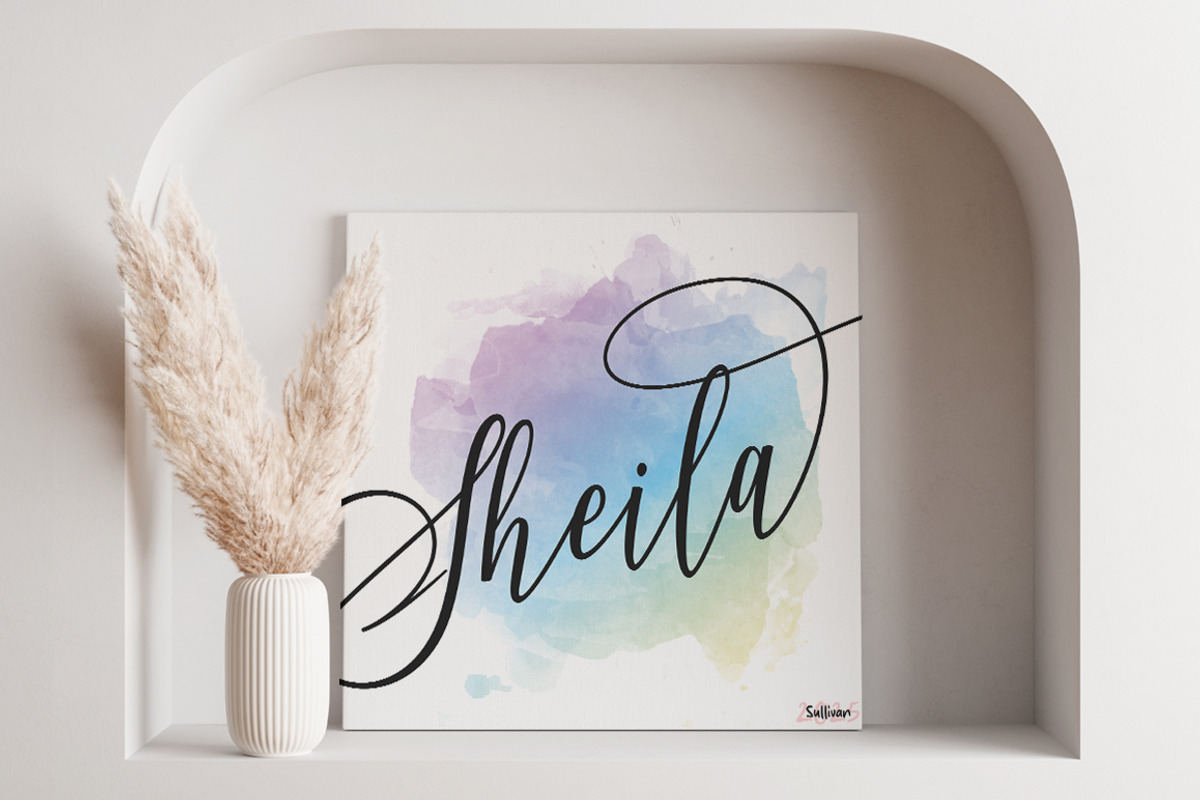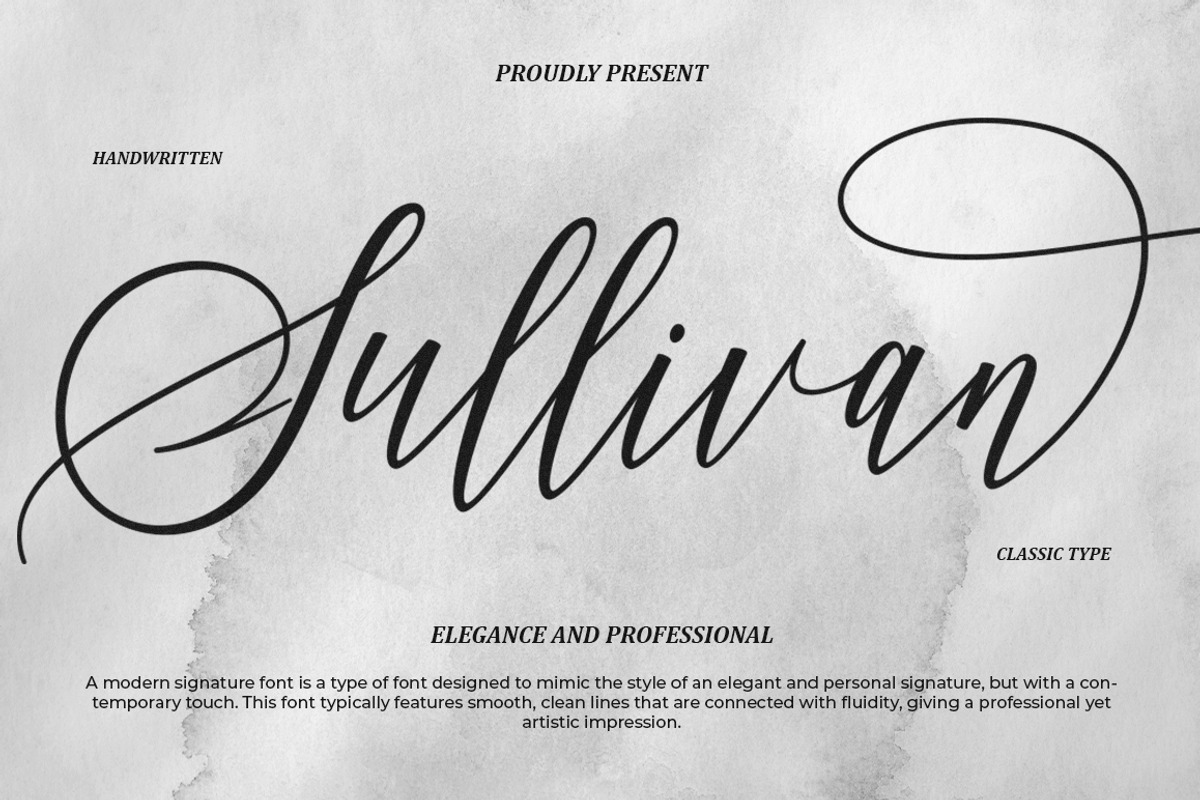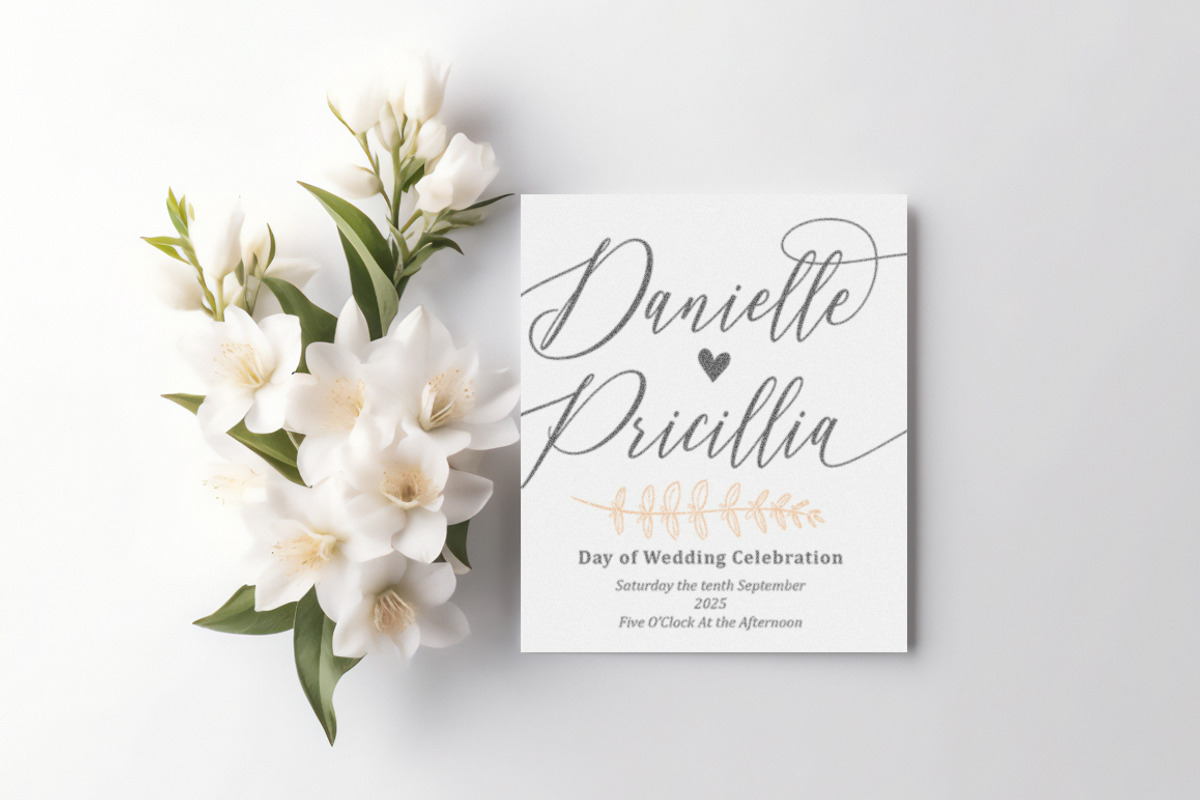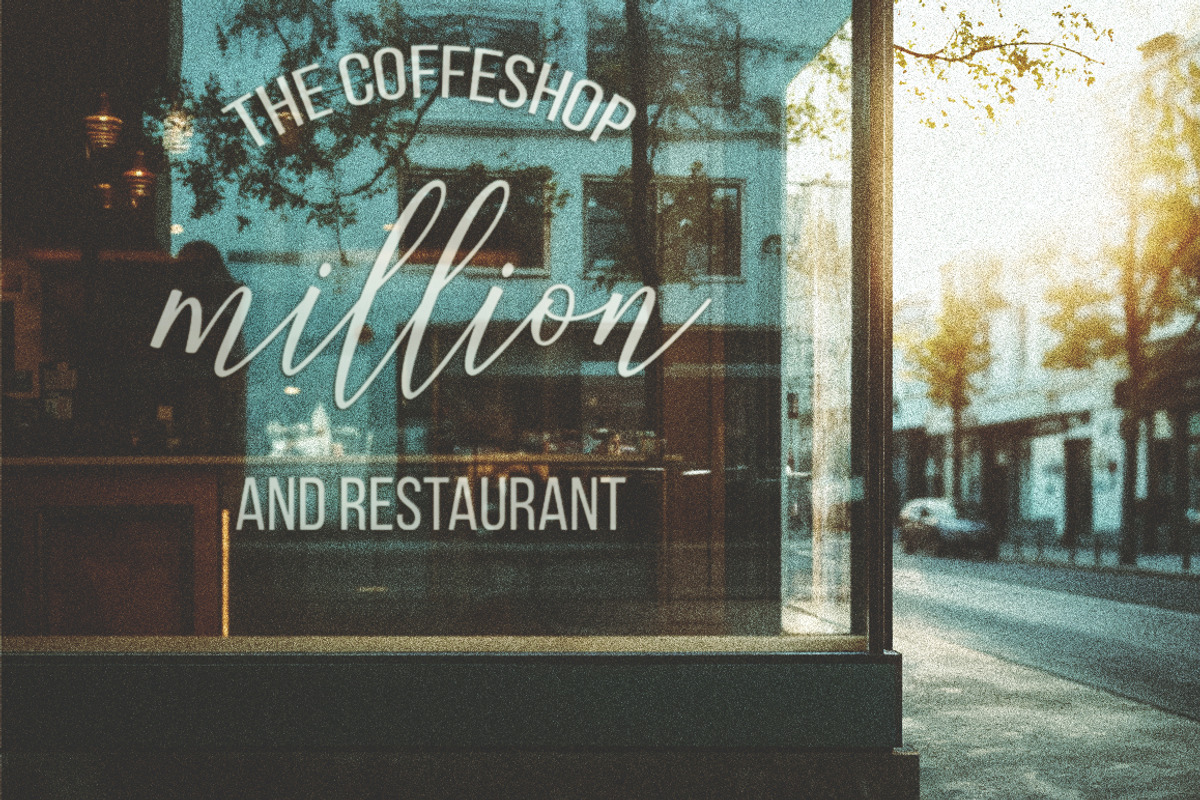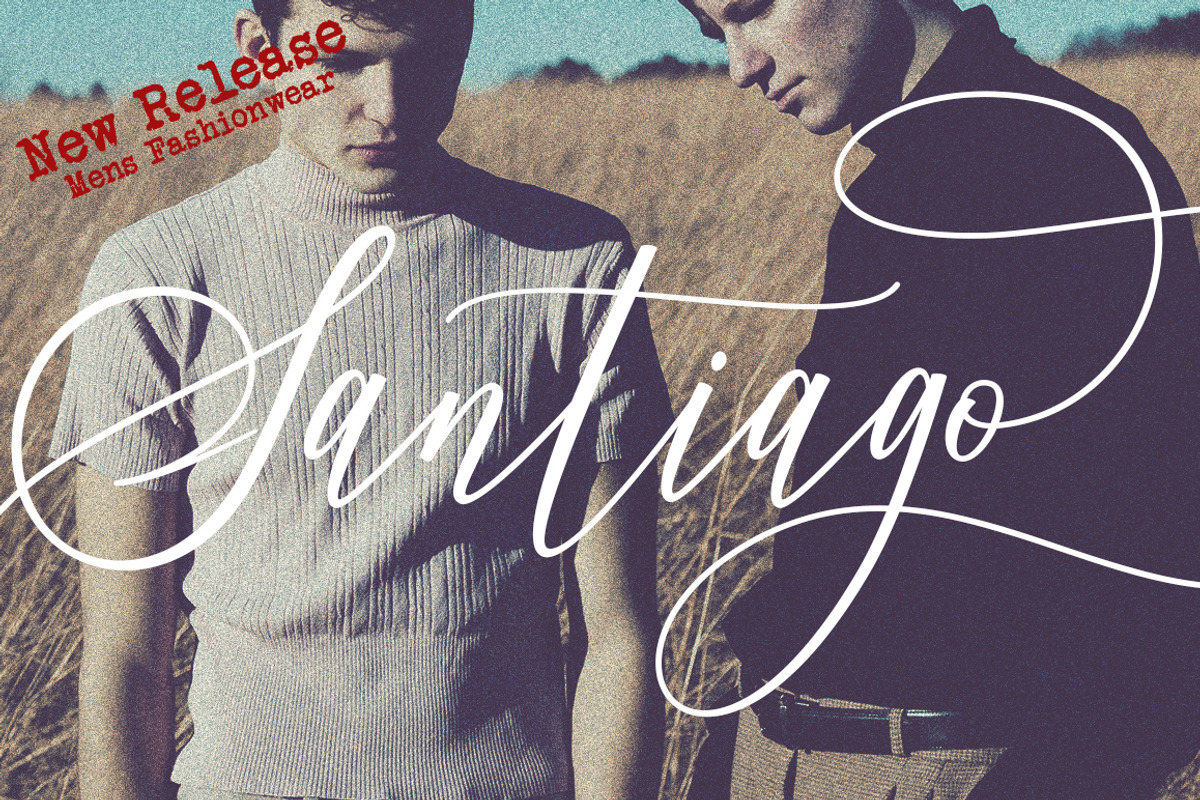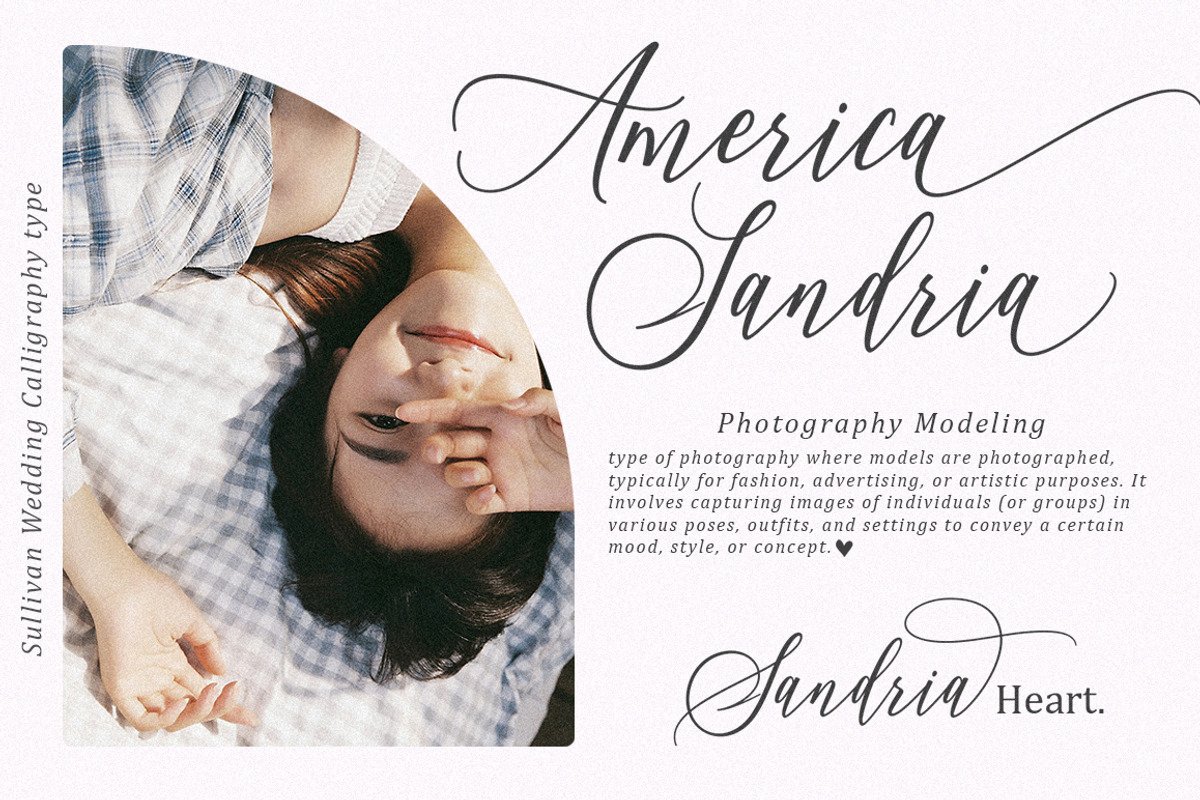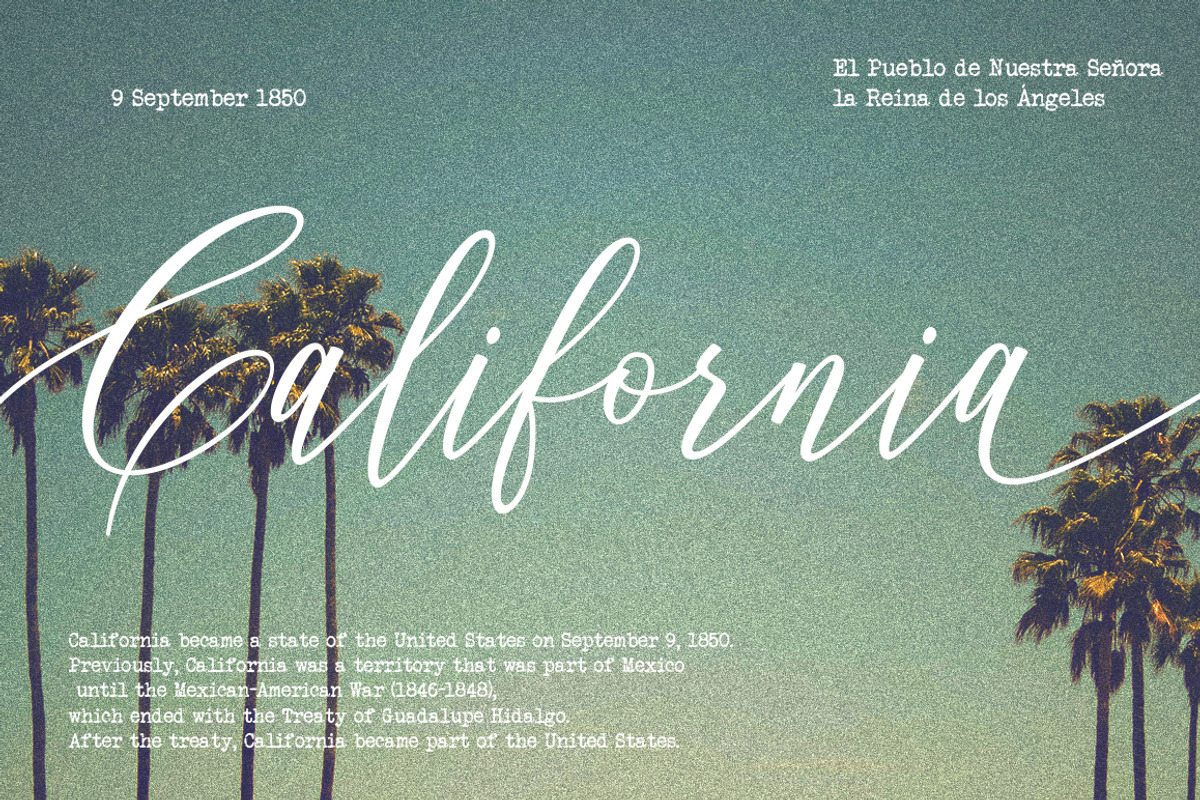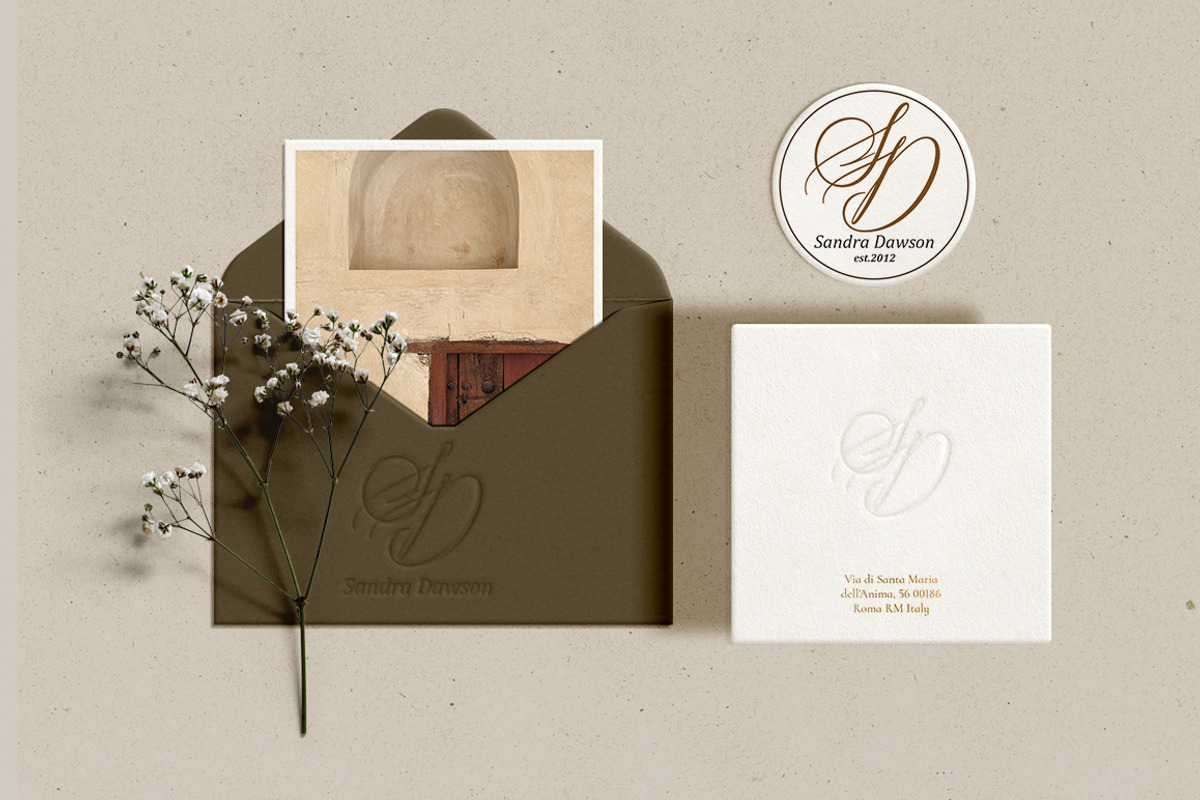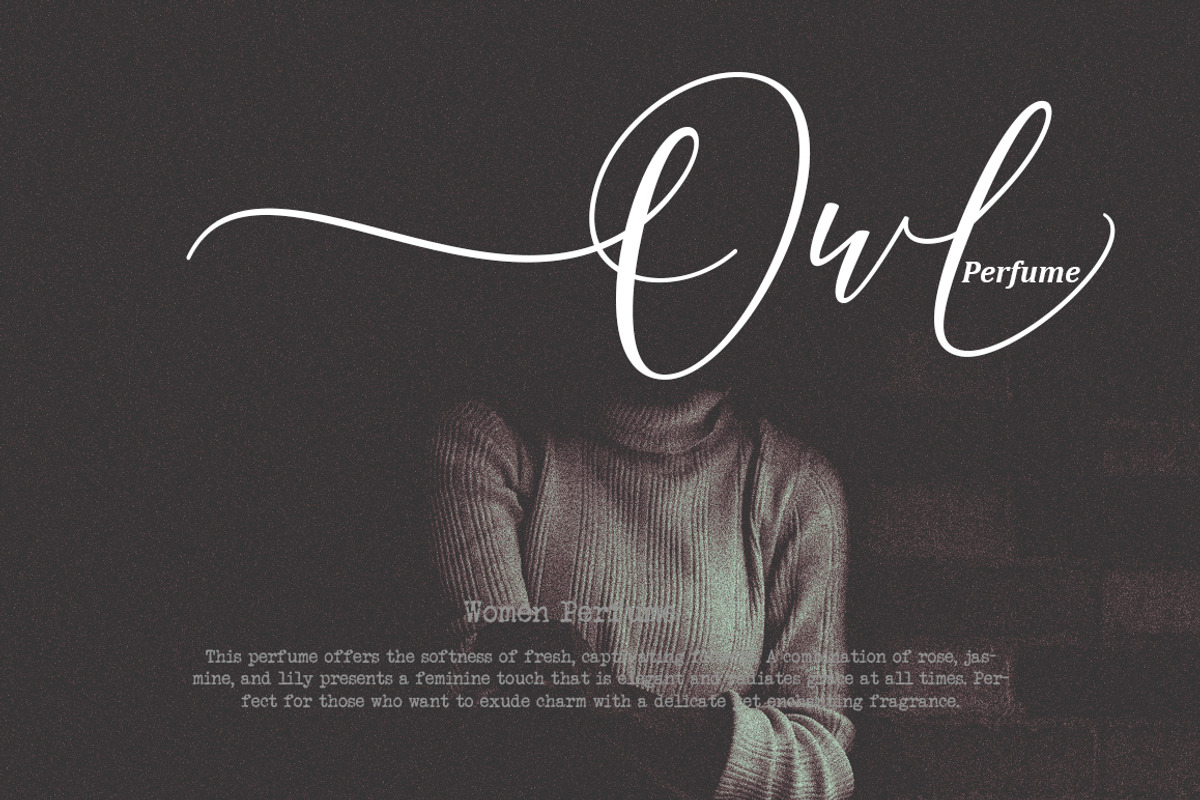
Sullivan | Semi Signature font
Sullivan is The Semi Signature font is a perfect blend of natural handwritten elegance and modern typographic structure. Not as formal as a serif font, yet not as free as pure handwriting, this style offers smooth strokes, graceful curves, and subtle details that create a personal yet professional impression.
Its balanced character makes it highly versatile—ideal for logos and branding, wedding invitations, product packaging, or digital content that seeks a stylish and exclusive touch. Semi Signature delivers warmth, elegance, and sophistication, resembling a personal signature that feels authentic while remaining easy to read.